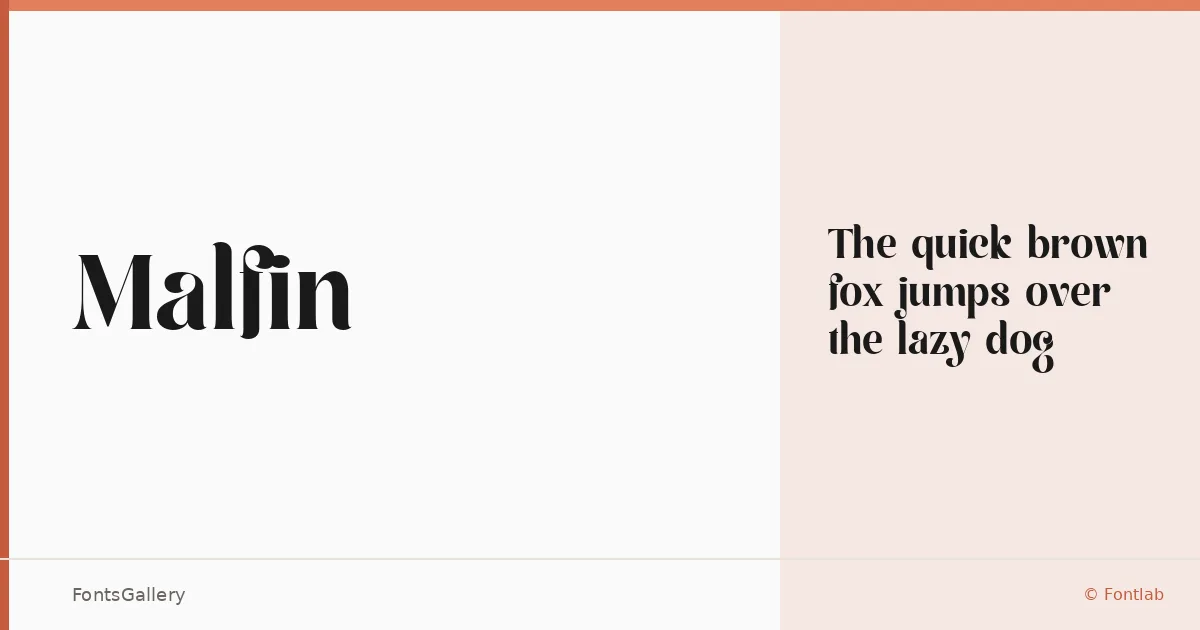
About Malfin Font
There is a quiet confidence in the way these serifs sit on the baseline — measured, deliberate, carrying the kind of weight that feels earned rather than imposed. Malfin is the work of designer Zamroni Hamzah, released under the Sensatype Studio trademark, and it arrives as a single Regular cut in both TTF and OTF formats.
The family belongs to the serif category and reads across a range that spans classic elegance and a cleaner, more modern sensibility — a pairing that keeps it from feeling stiff or period-bound. The letterforms lean into luxury without becoming decorative, so they hold their composure equally well at headline scale and in tighter logo lockups. With Latin coverage and a single, carefully resolved Regular style, the design rewards restraint.
The face is well-suited to book covers, magazine headlines, branding systems, and logo work where a refined typographic presence matters more than novelty. For contrast in a layout, the listed pairing companions span a useful range: Helvetica for clean neutrality, Allura for a softer script counterpoint, Vintage Melinda and Abrade for editorial character, and (AH) Manal when a broader stylistic range is needed within a single project.